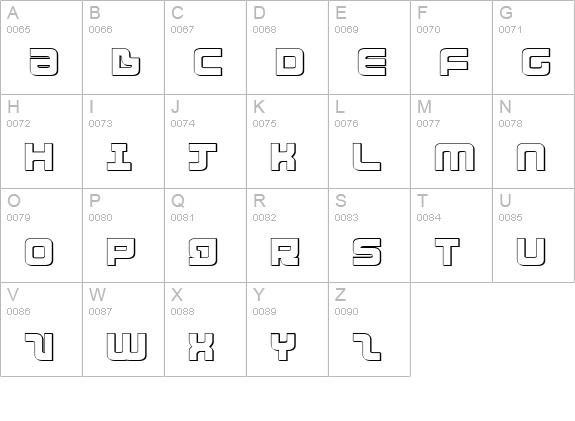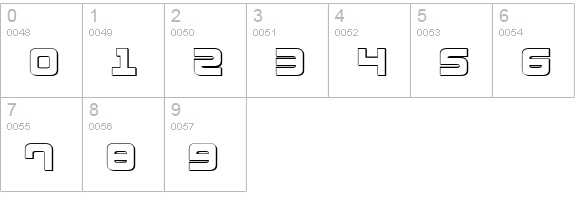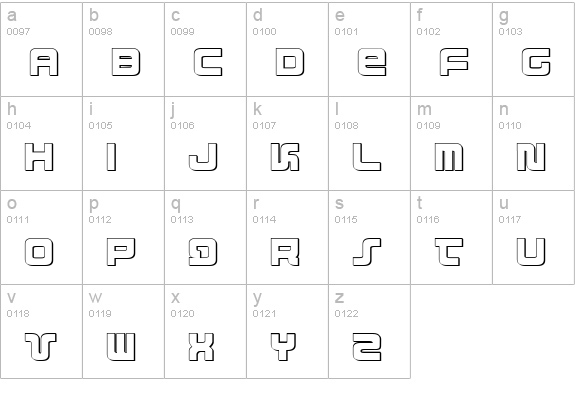
Direktor 3D font is a stunning and versatile typeface that brings a modern and dynamic feel to any design project. The three-dimensional effect of the letters adds depth and visual interest, making it perfect for logos, headlines, and other creative applications. The sharp angles and bold lines of Direktor 3D font give it a strong and impactful presence on the page. The best part is that Direktor 3D font is completely free to download at FontsMarket.com. You can easily access this stylish and eye-catching font to enhance your designs without any cost. Whether you're working on a branding project, poster design, or website layout, Direktor 3D font will make a bold statement and elevate your work to the next level. Download it now and add a touch of modern sophistication to your projects.